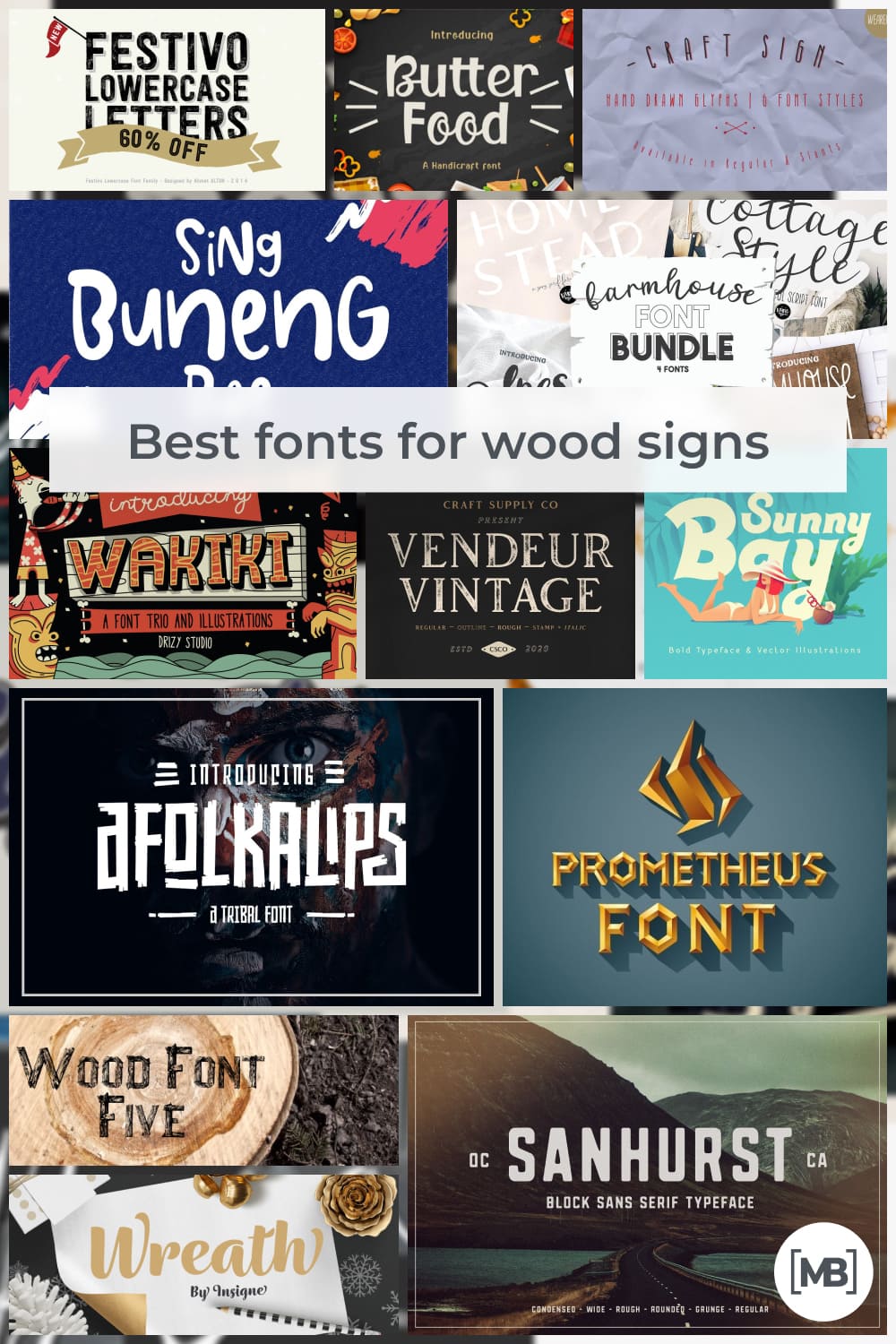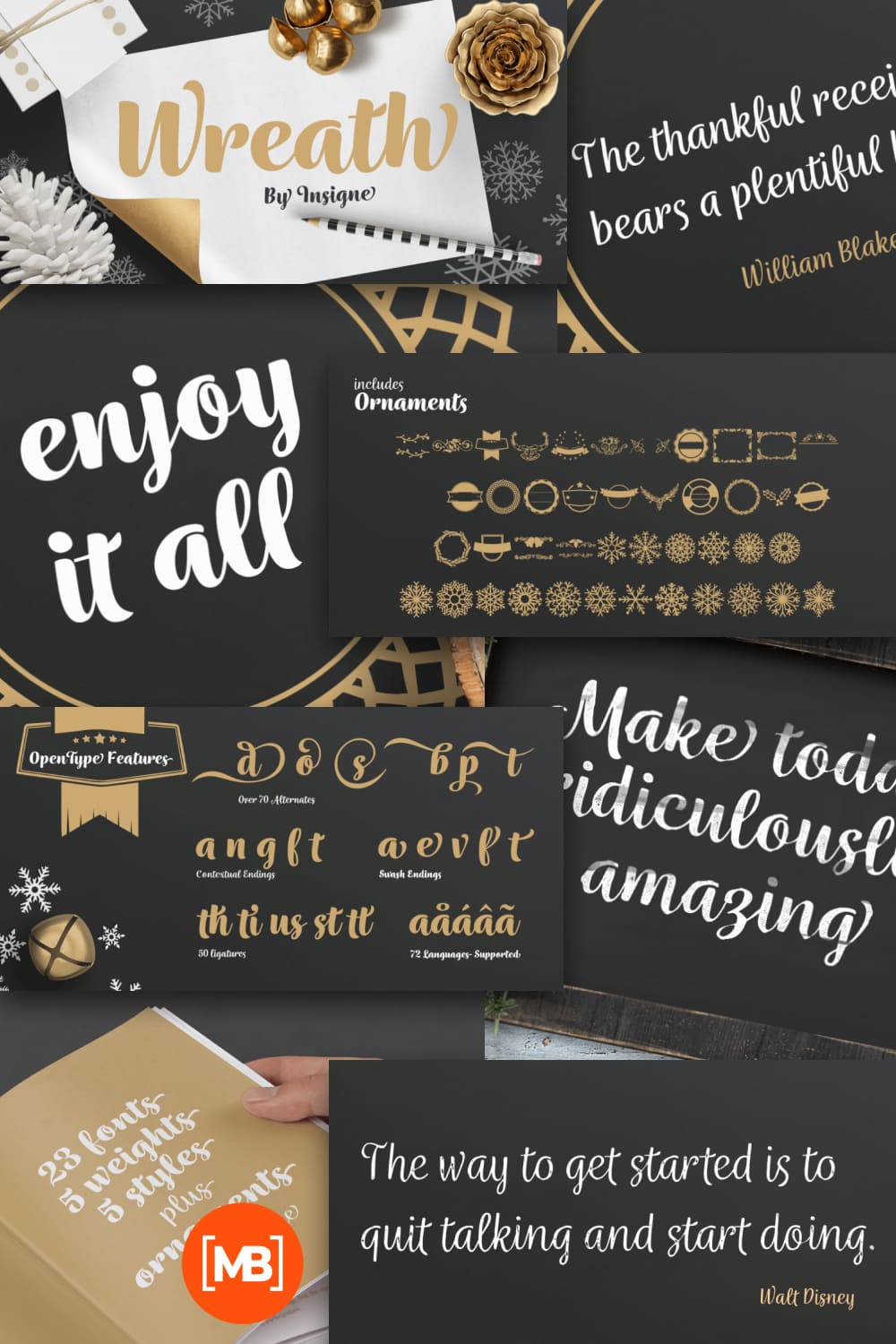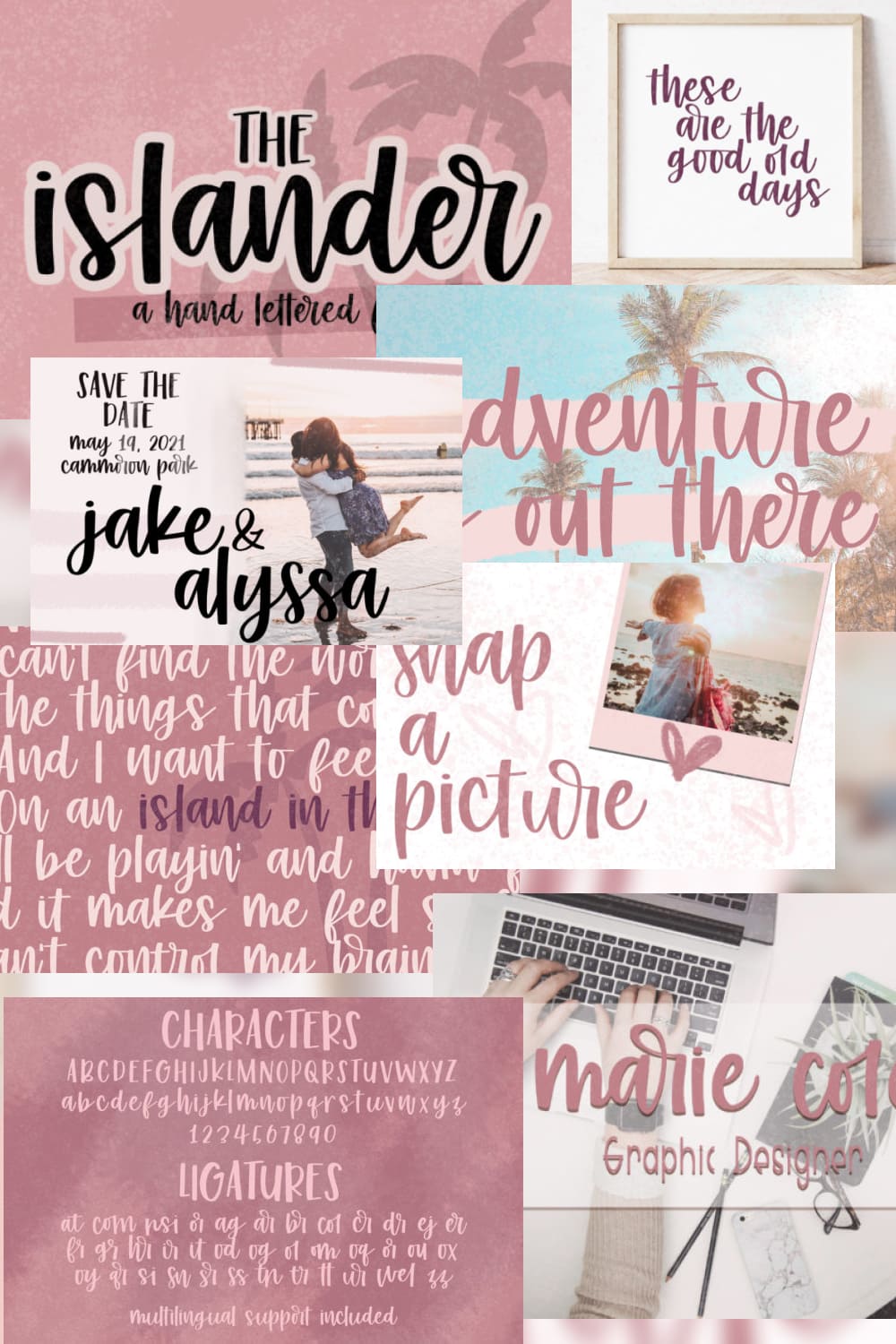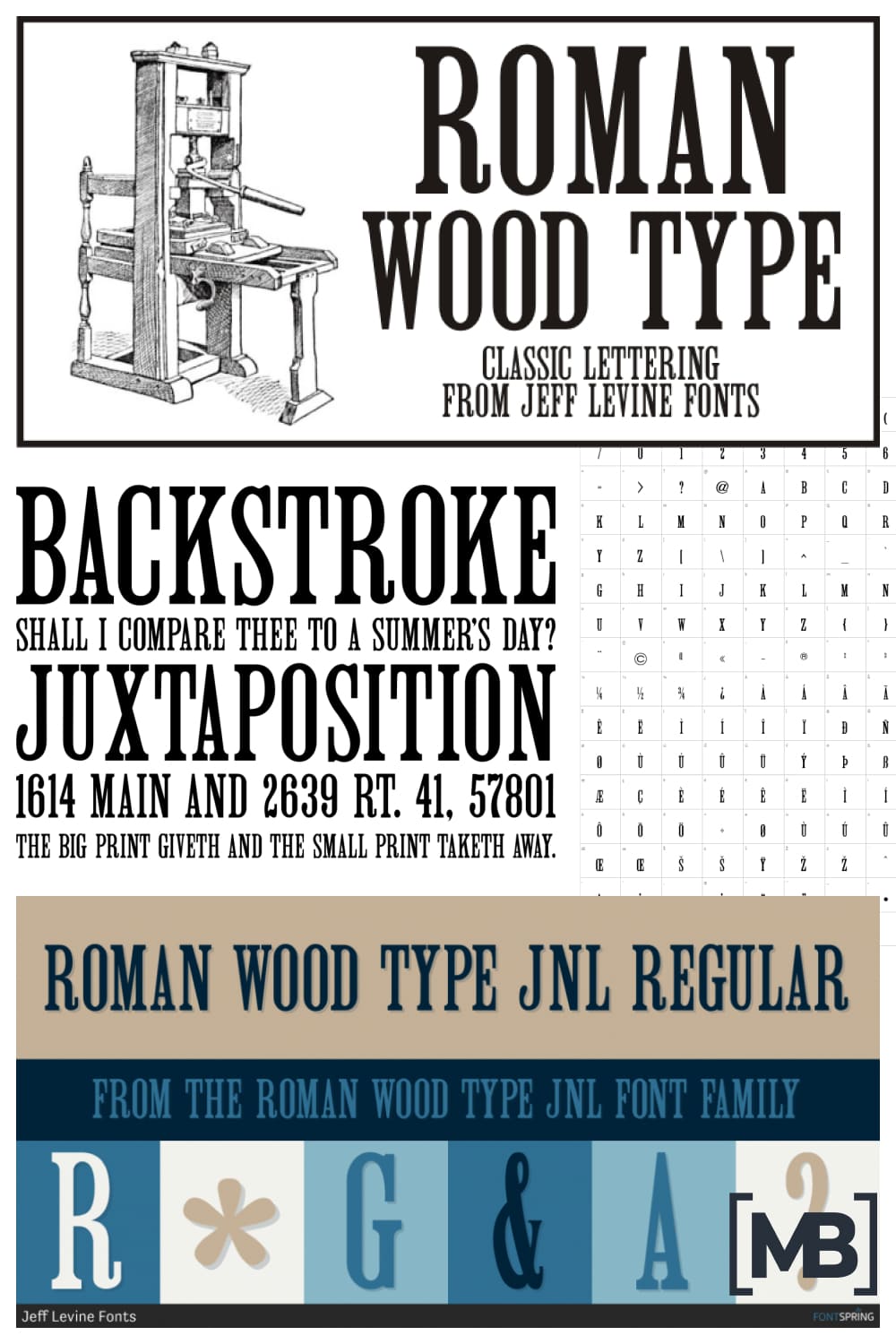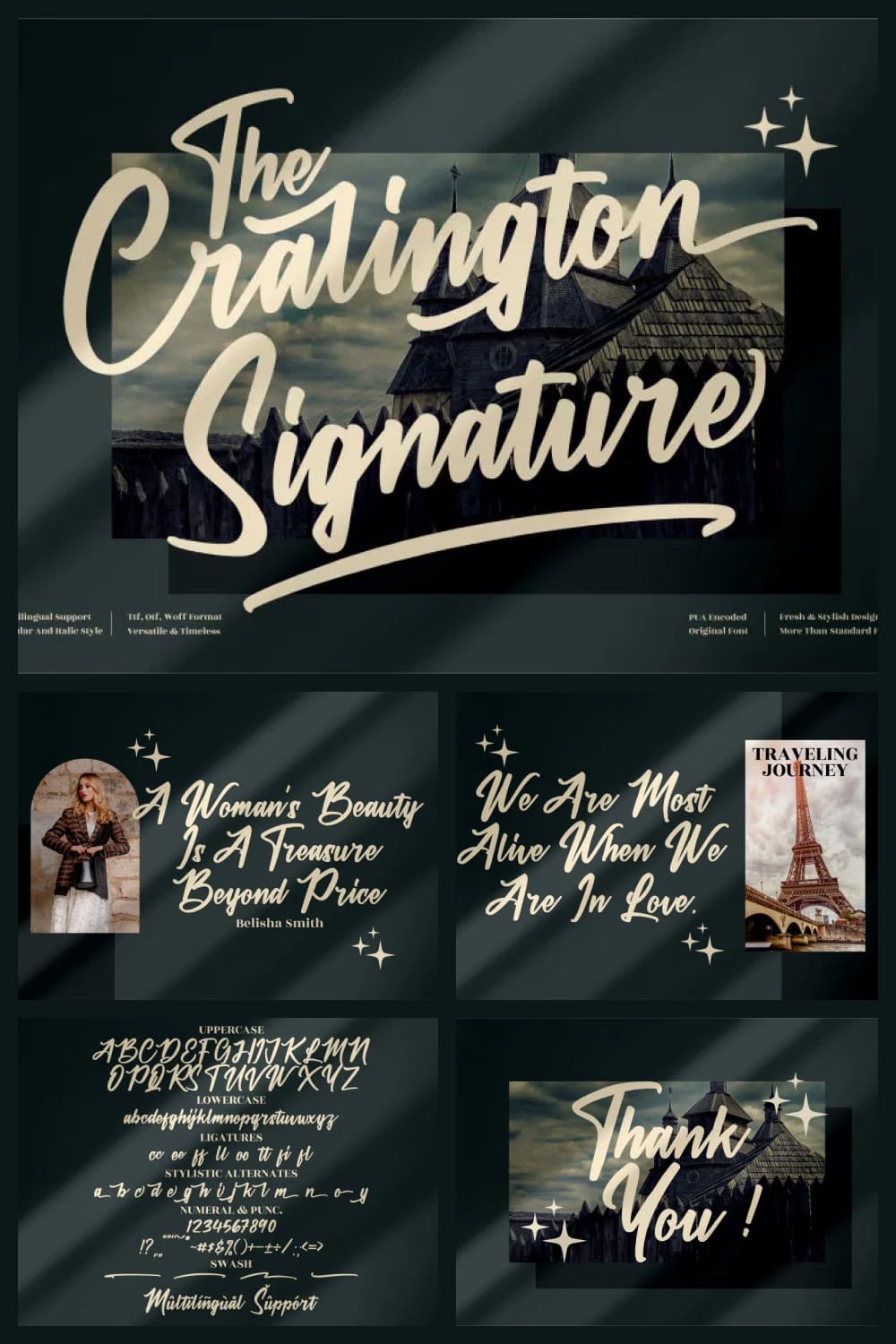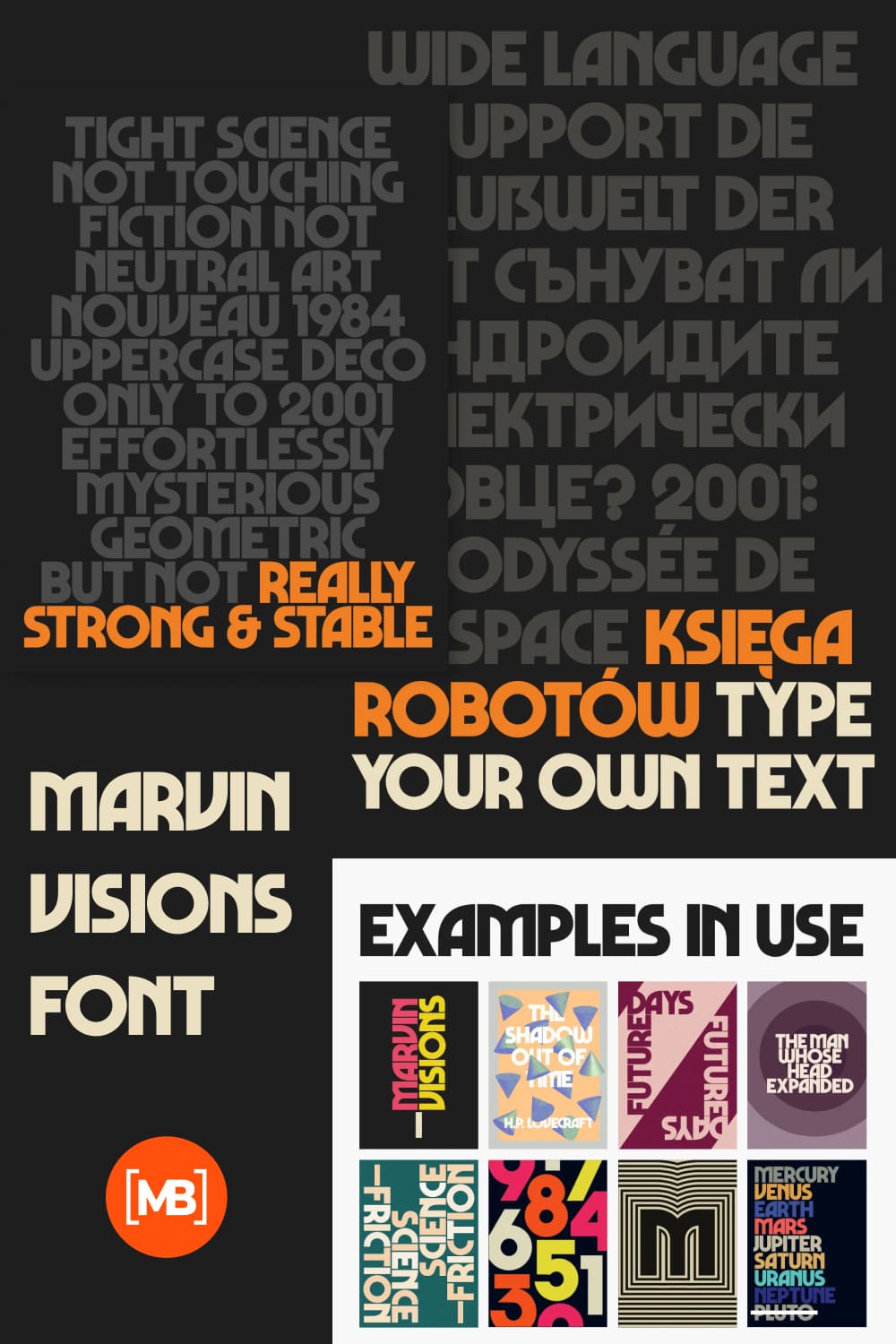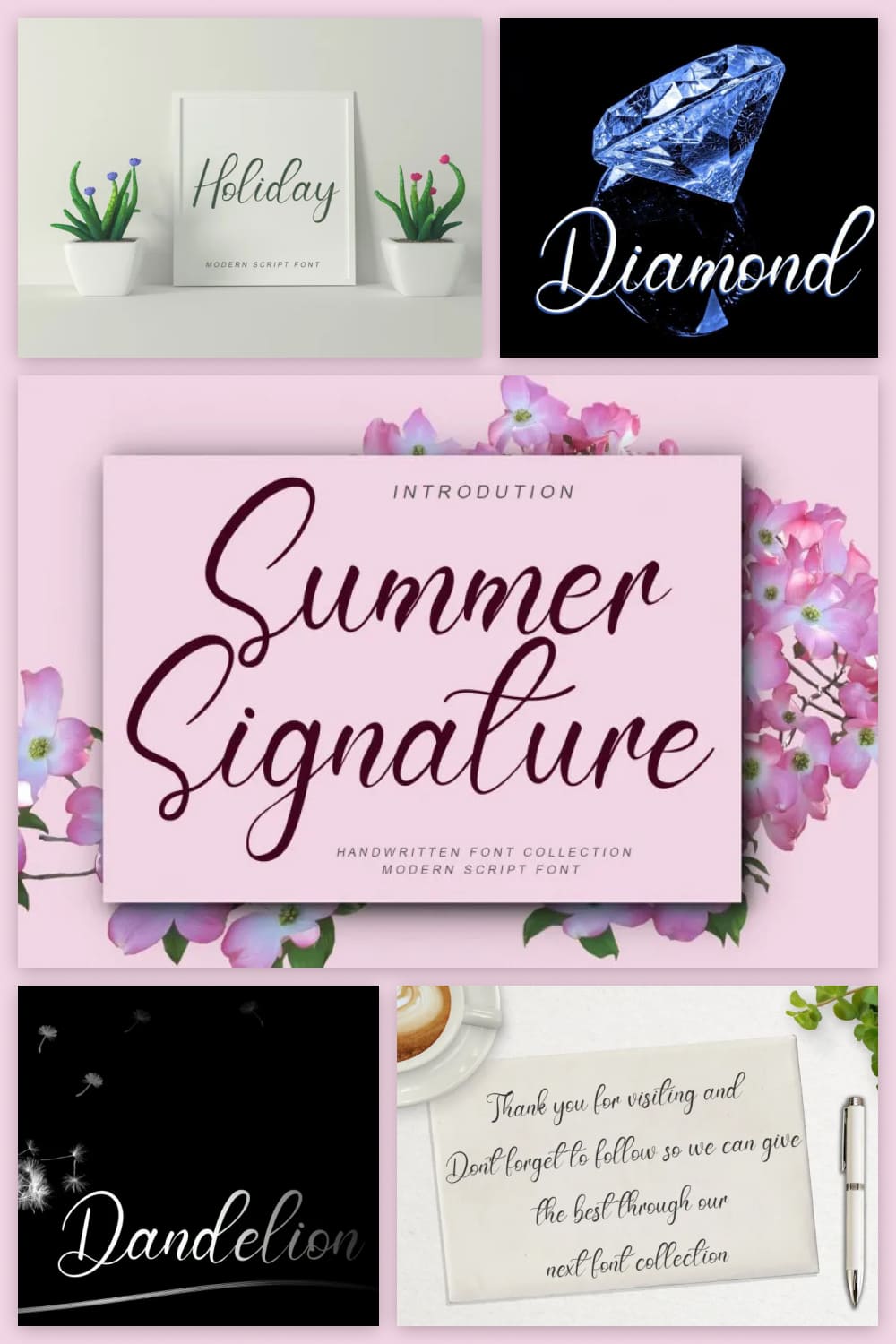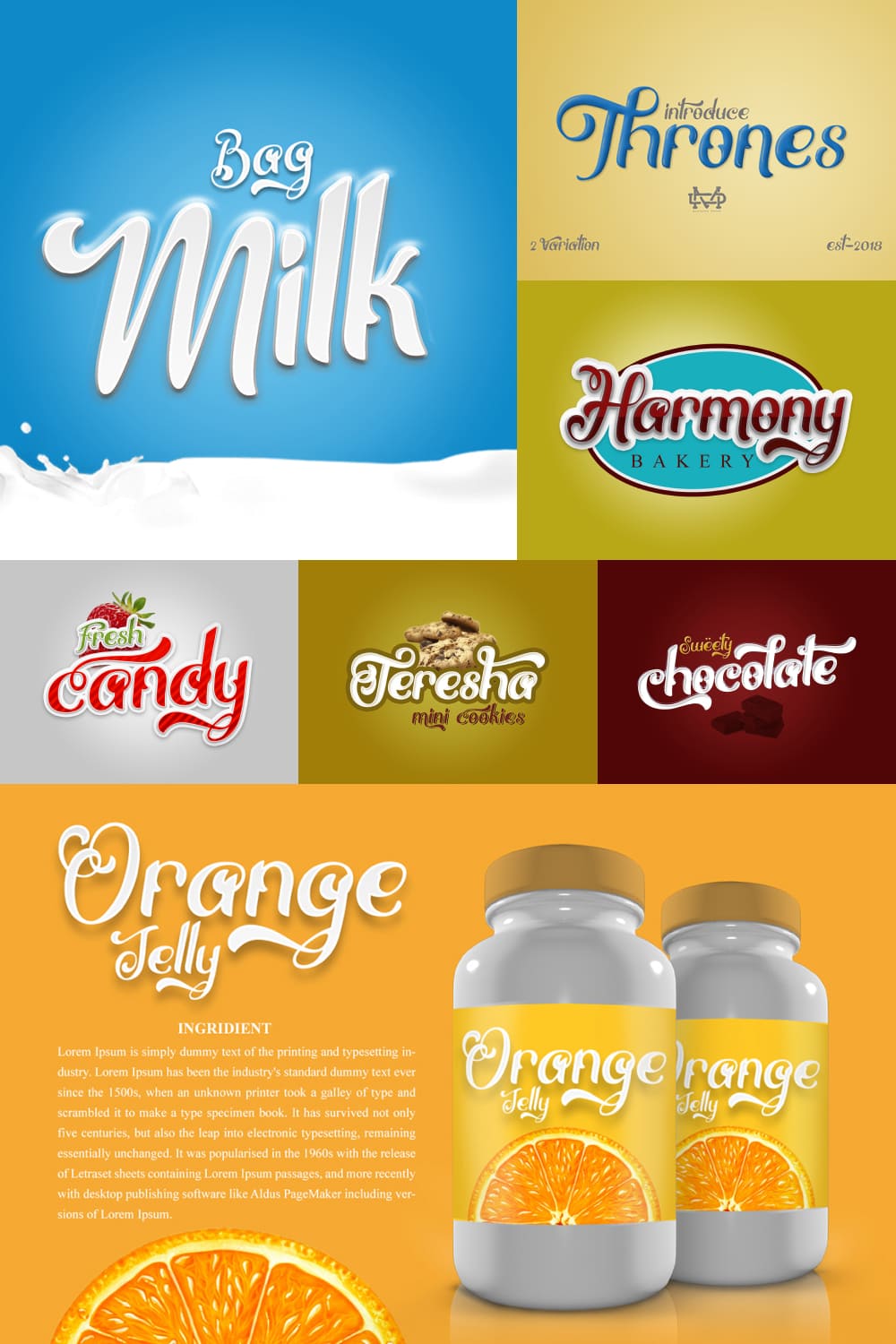
35+ Best Fonts for Wood Signs in 2021: Free and Premium
Fonts for Wood Signs. It’s hard not to notice that we are surrounded by information everywhere. No matter where we look, we see eye-catching billboards, advertisements, animated banners, signs, etc. All of this information allows us to engage people in shopping, campaigns, shows, concerts, and important events in the city/country. The key aspect of such works is the text. Depending on your goals, the text will have a different style, appearance, and design.
Wooden signs have a more vintage and retro feel, which is gaining momentum once again. It looks great for advertisements, posters, and at the doorways of themed cafes, bars, and restaurants. It’s not easy to combine wood and lettering art. After all, the main objective is to convey a certain vibe, get the customer’s attention, and make them stay with you as long as possible. Typefaces will help you achieve all this. It is best to not wait until the last moment to choose the fonts for your project. After all, the font can fundamentally change the mood of the project and the attitude of the visitors.
Knowing how difficult it is to find that perfect font, we have created an impressive collection that will surprise even the most avid designers. We present you with a selection of the best fonts for wood signs. They can be used and combined with projects of any orientation. Experiment, create excellent works, and achieve the best results together with the creative MasterBundles.
Butter Food Network Font
Scary Halloween Sign Font 2021
Alaysa Script Retro Signage Font
Bourbon Font Bundle